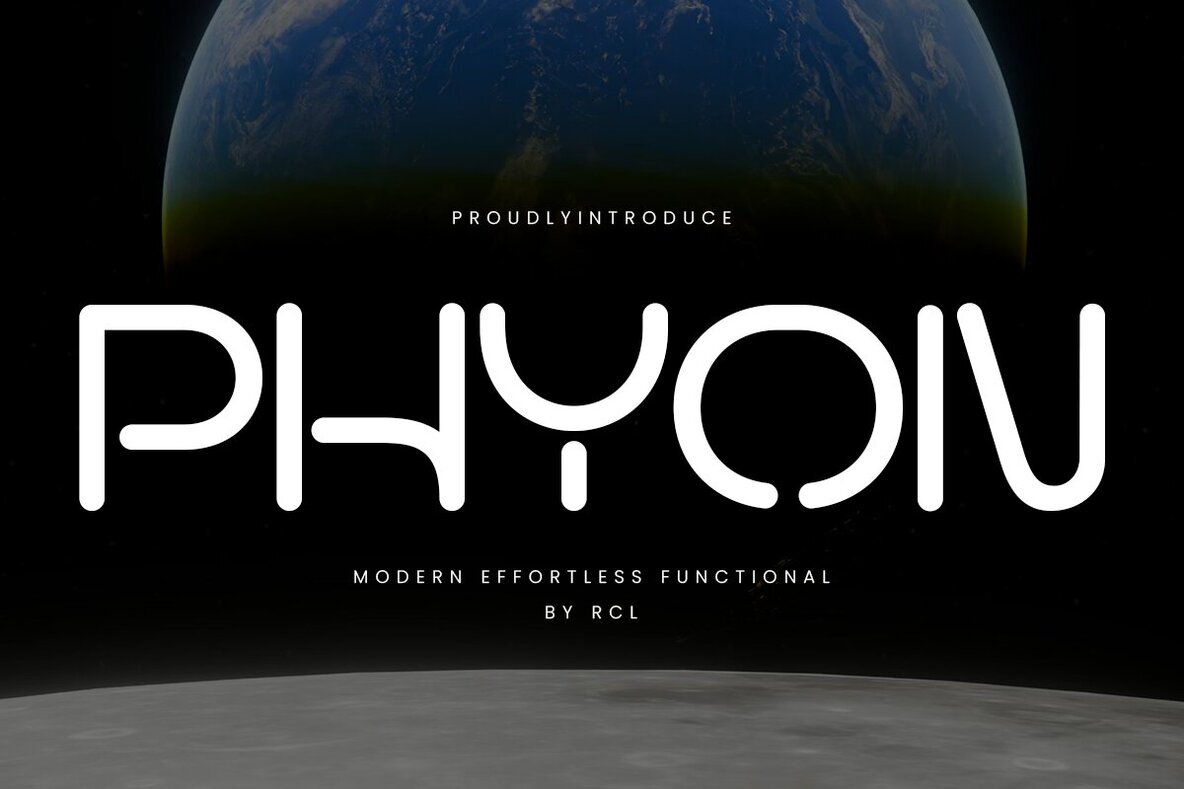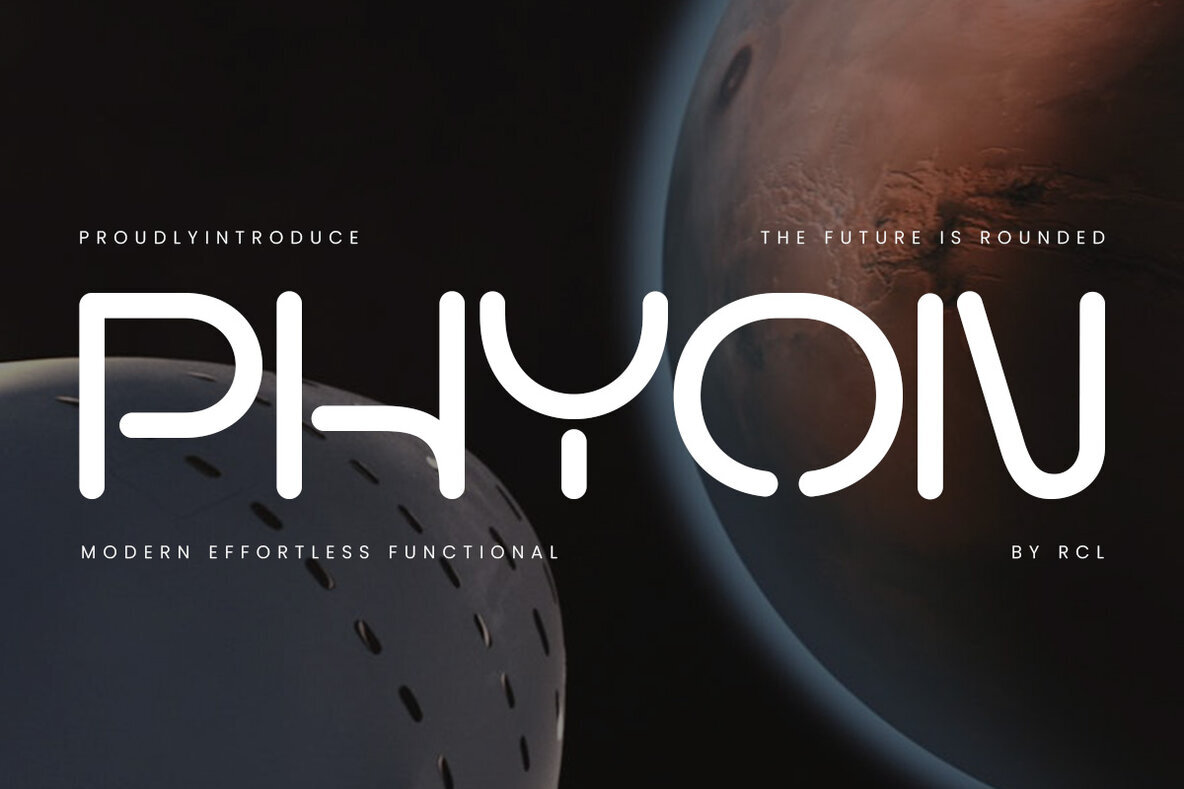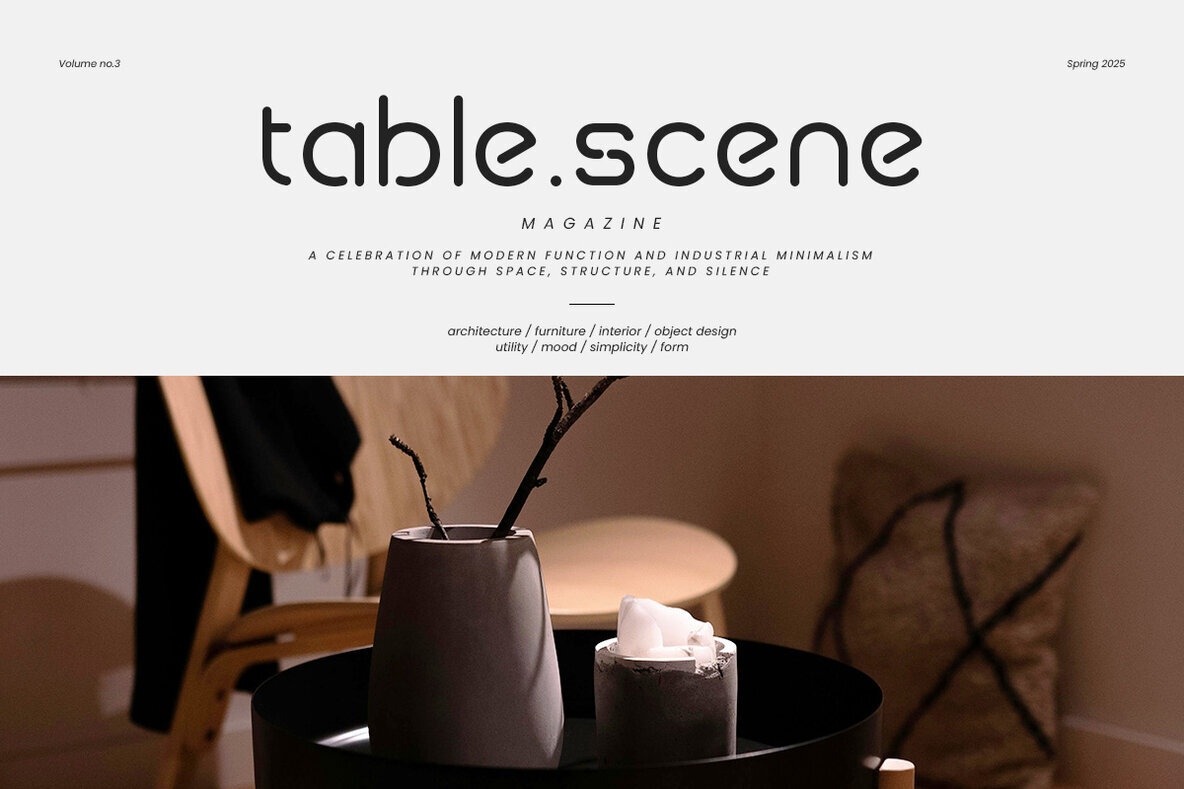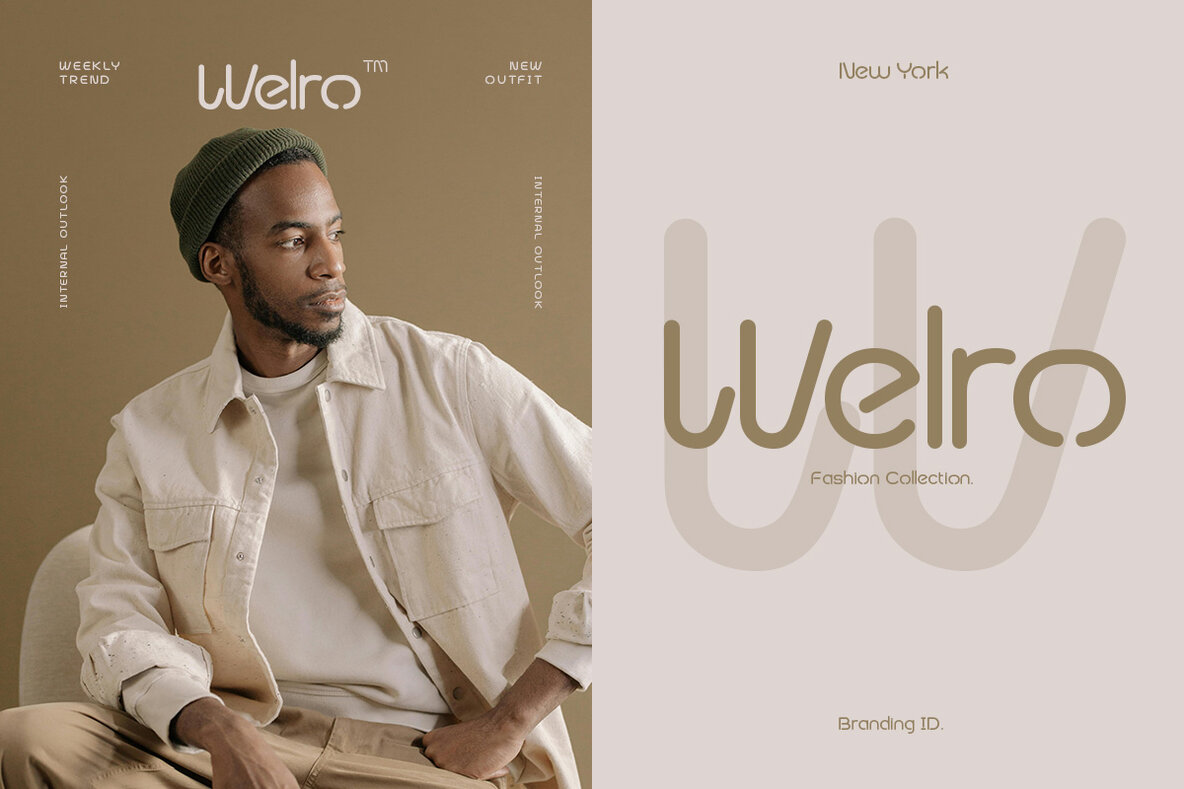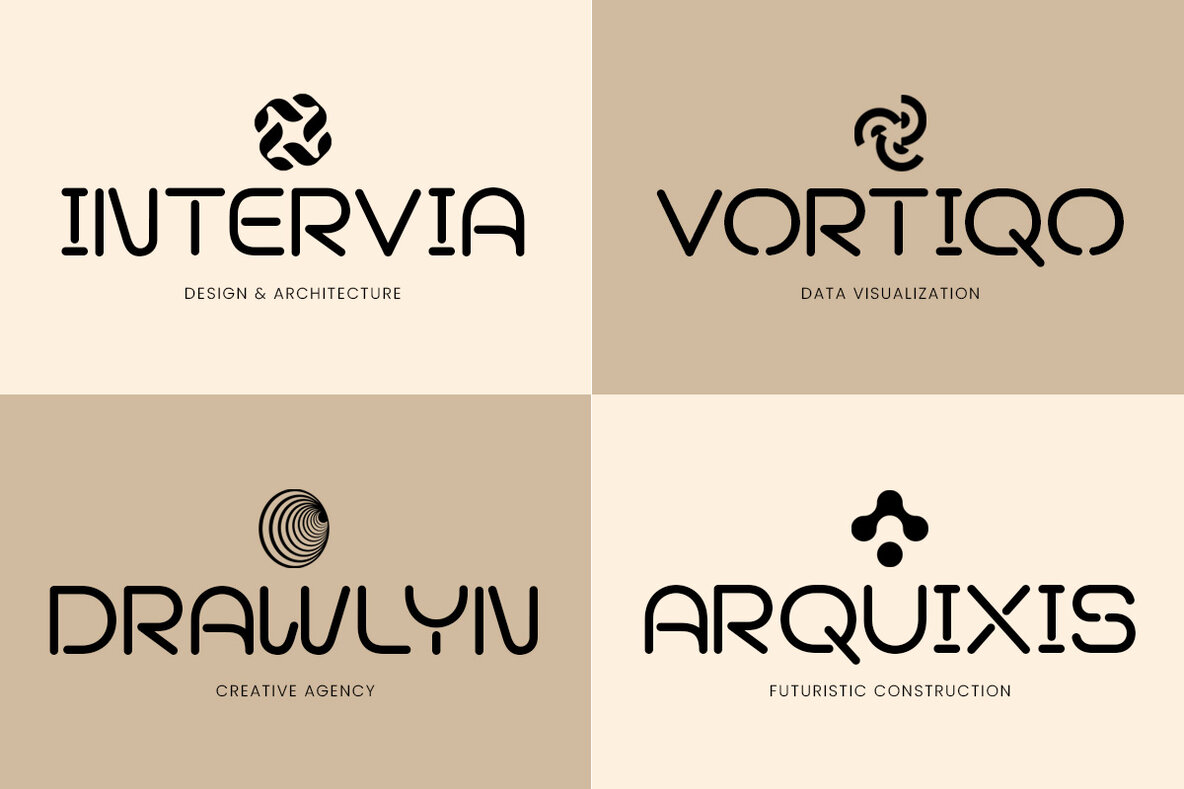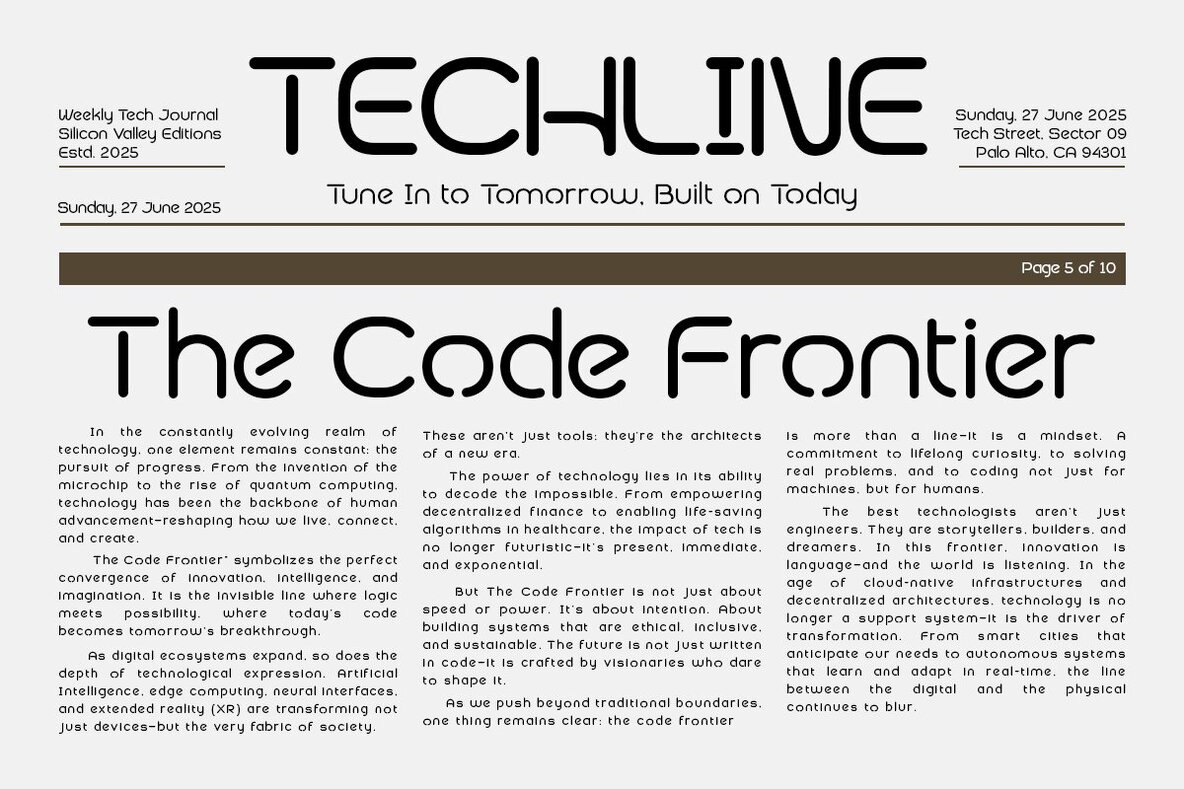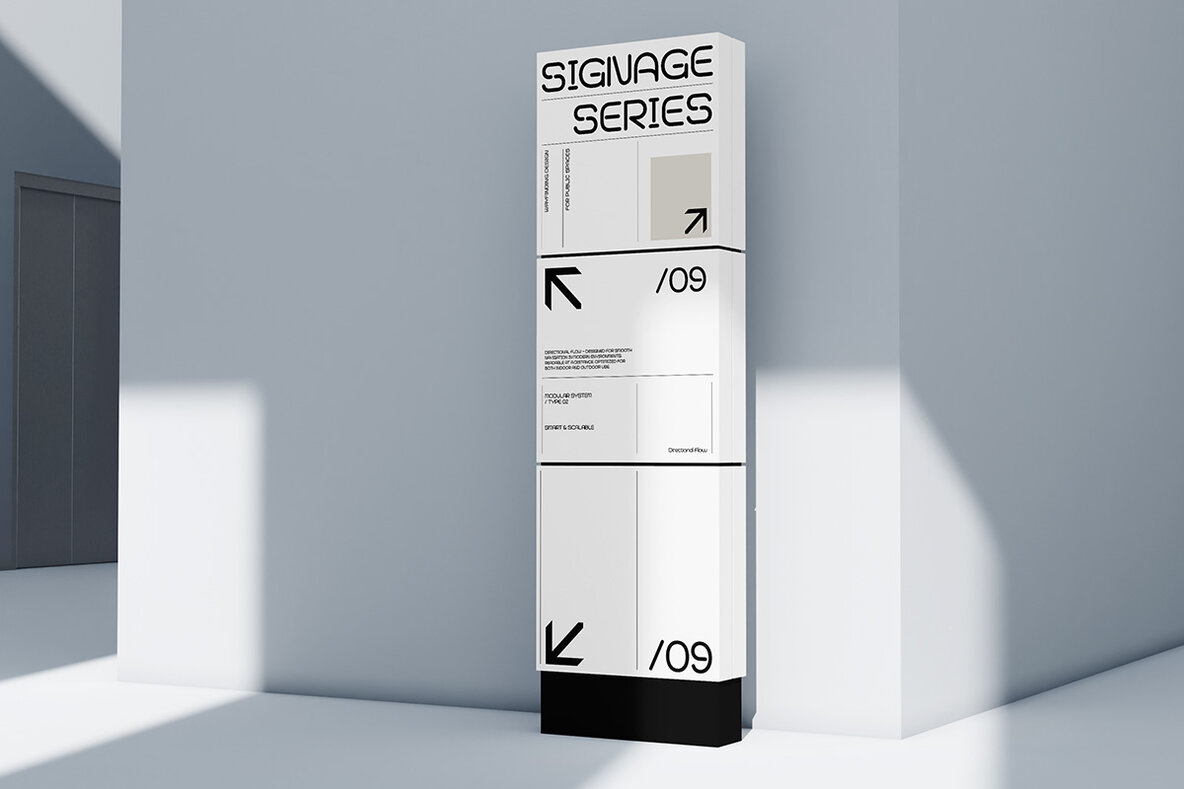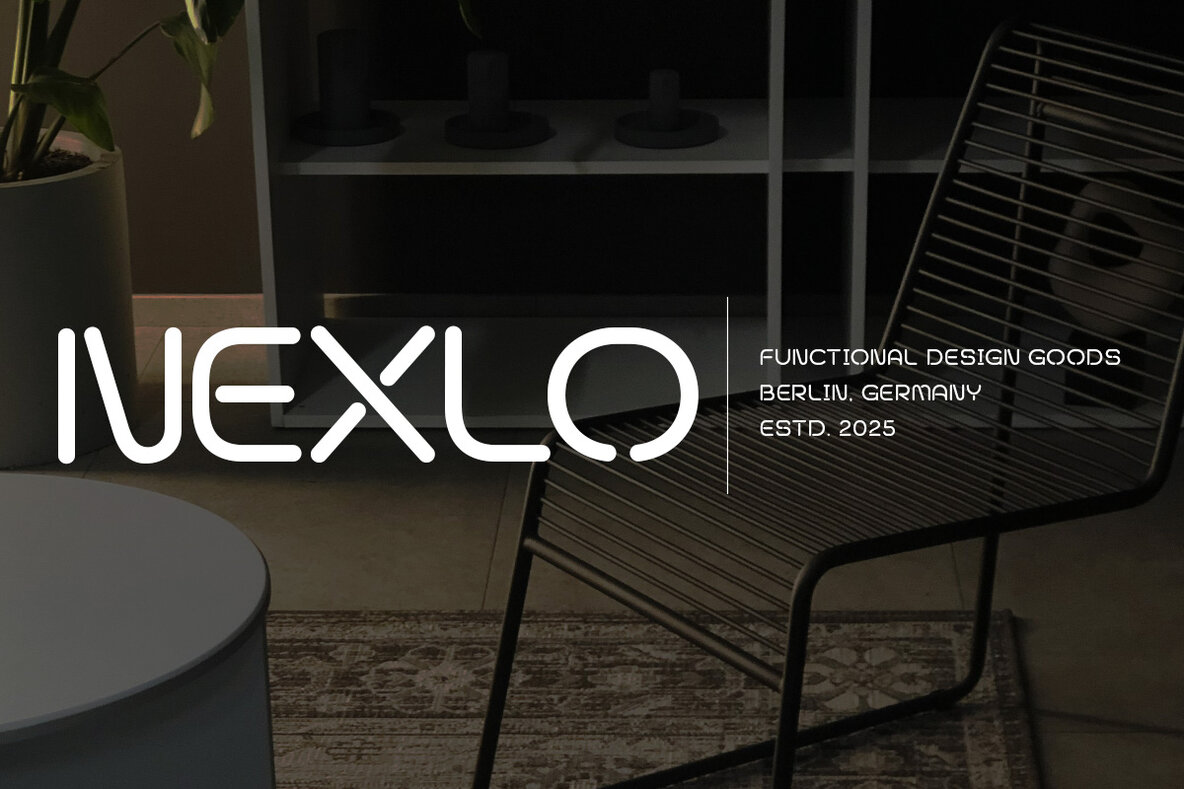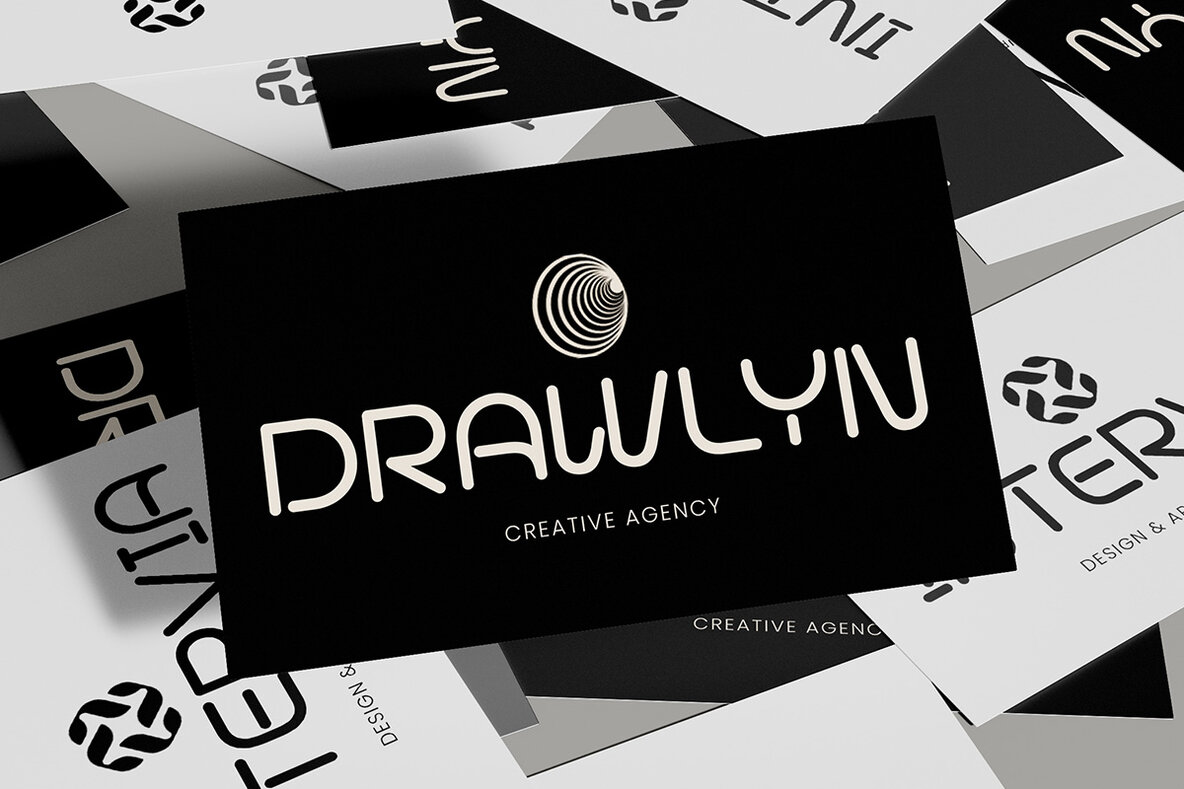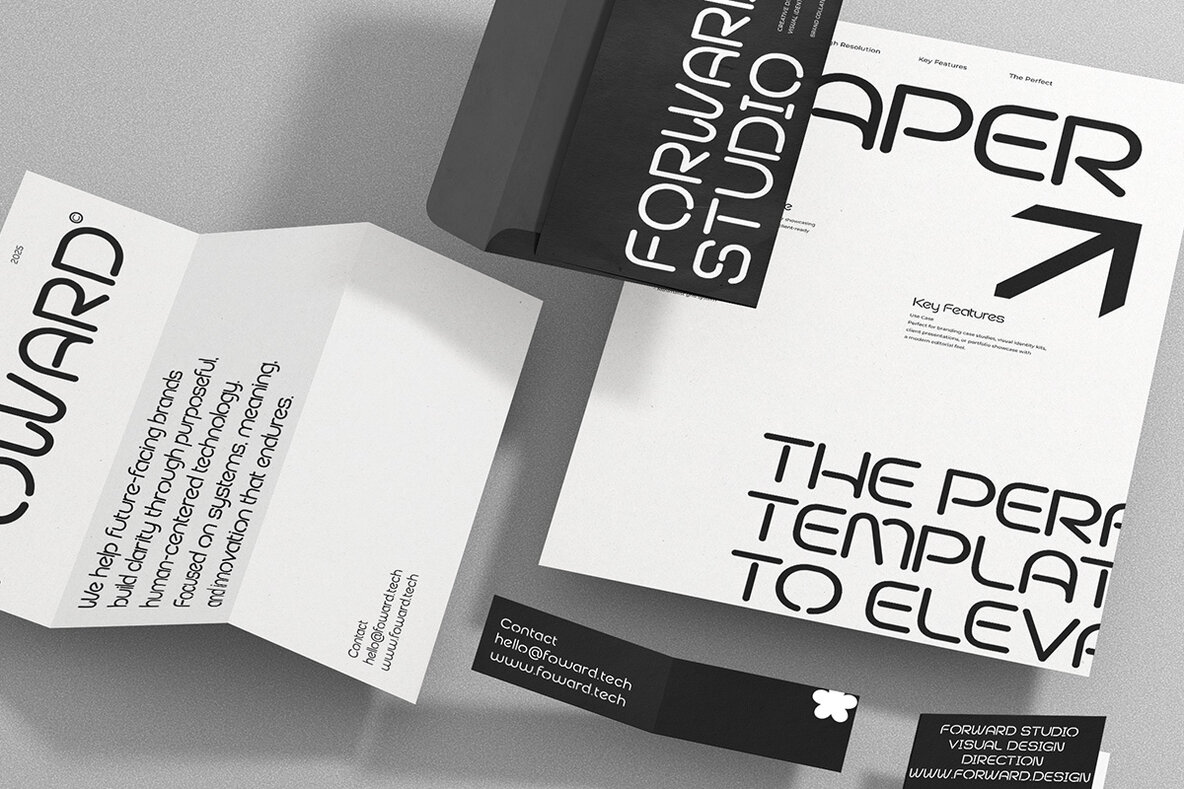
Phyon Font
Phyon Regular
Embrace the future with Phyon, a cutting-edge rounded sans serif font designed for the digital era. Combining sleek geometry with modern curves, Phyon exudes both professionalism and vision. Inspired by technology and clean industrial design, each character communicates progress and clarity. Phyon harmonizes readability and personality, serving perfectly for UI/UX design, startup branding, digital interfaces, or futuristic posters. Its smooth, modern forms are ideal for product presentations, tech ecosystems, sci-fi graphics, and space-inspired visuals.Phyon Font: Futuristic Rounded Sans Serif